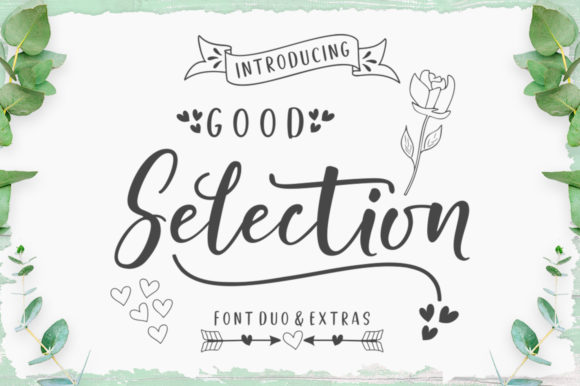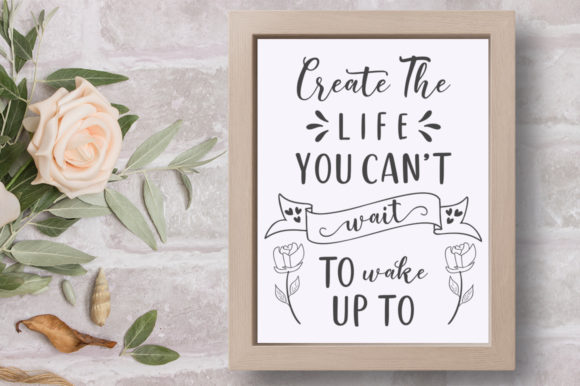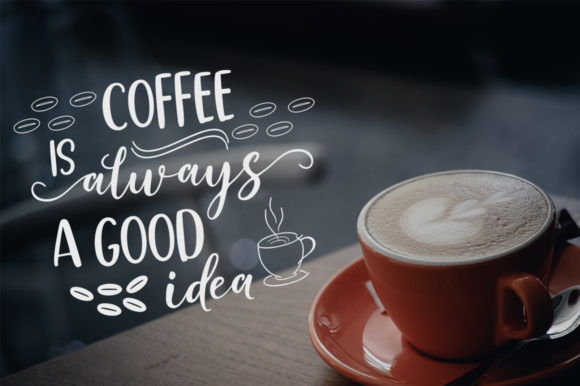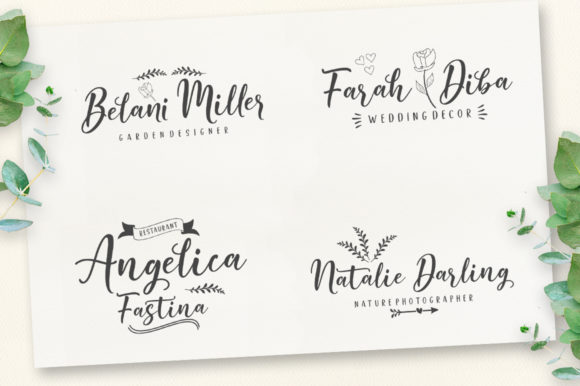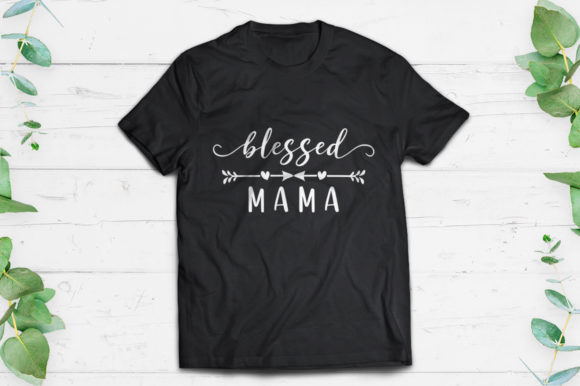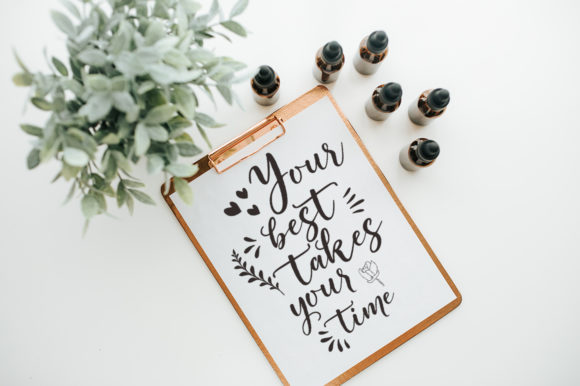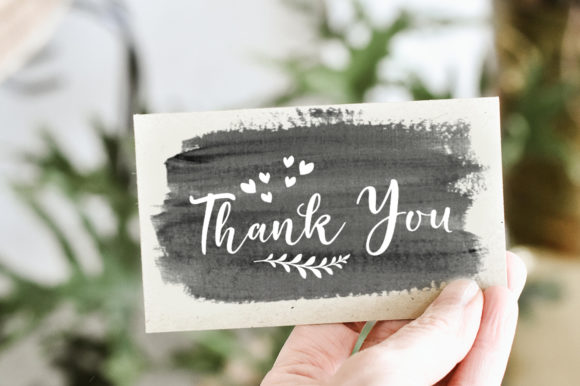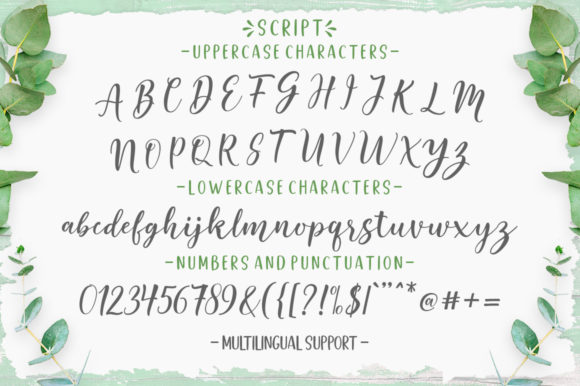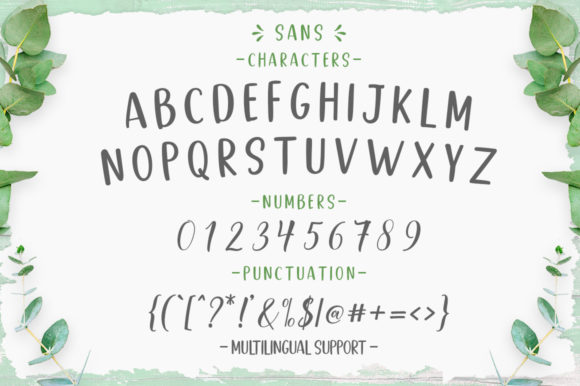
HomeScript FontsGood Selection Duo Font Script Fonts Good Selection Duo Font FacebookXPinterestWhatsApp Good Selection Duo Font Poster 2 Good Selection Duo Font Poster 3 Good Selection Duo Font Poster 4 Good Selection Duo Font Poster 5 Good Selection Duo Font Poster 6 Good Selection Duo Font Poster 7 Good Selection Duo Font Poster 8 Good Selection Duo Font Poster 9 About Good Selection Duo Font Good Selection is a fun and beautiful font duo. It will effortlessly elevate any design project! DOWNLOAD NOW People also explored Caricia Font Cowboy Stories Take Trails Font Mock-Up Farmhouse Sign Agies Fresh Font Flash Light Font Meflin Script Font Haworthia Font Syani White Font 295 0 TagsGood Selection Duo Font Previous articleAcelire Rosse FontNext articleQhinanttika Font LEAVE A REPLY Cancel reply Comment: Please enter your comment! Name:* Please enter your name here Email:* You have entered an incorrect email address! Please enter your email address here Website: Save my name, email, and website in this browser for the next time I comment. Personal Use Free Cosmos Personal Use Free Read more about this font Cinderella Personal Use Free Read more about this font Groomer Personal Use Free Read more about this font Mellow Personal Use Free Read more about this font BLOG Best Fonts for YouTube Videos: Make Your Thumbnails Stand Out Best Fonts for YouTube Videos: Make Your Thumbnails Stand Out Choosing the right font can make a massive difference in how your YouTube videos perform.... Free Fonts Risk: Why Free Fonts Can Be Dangerous for Designers Elegant Wedding Invitation Fonts – Handwritten & Script Fonts Transform Your Website: Elevate Your Typography with 7 Best Web Font Generators